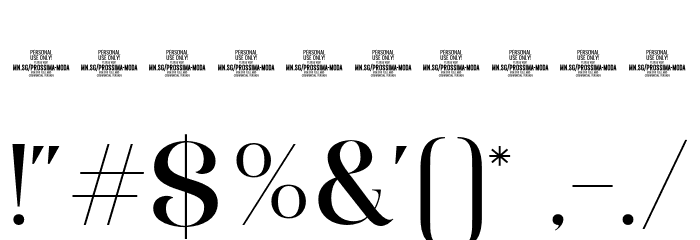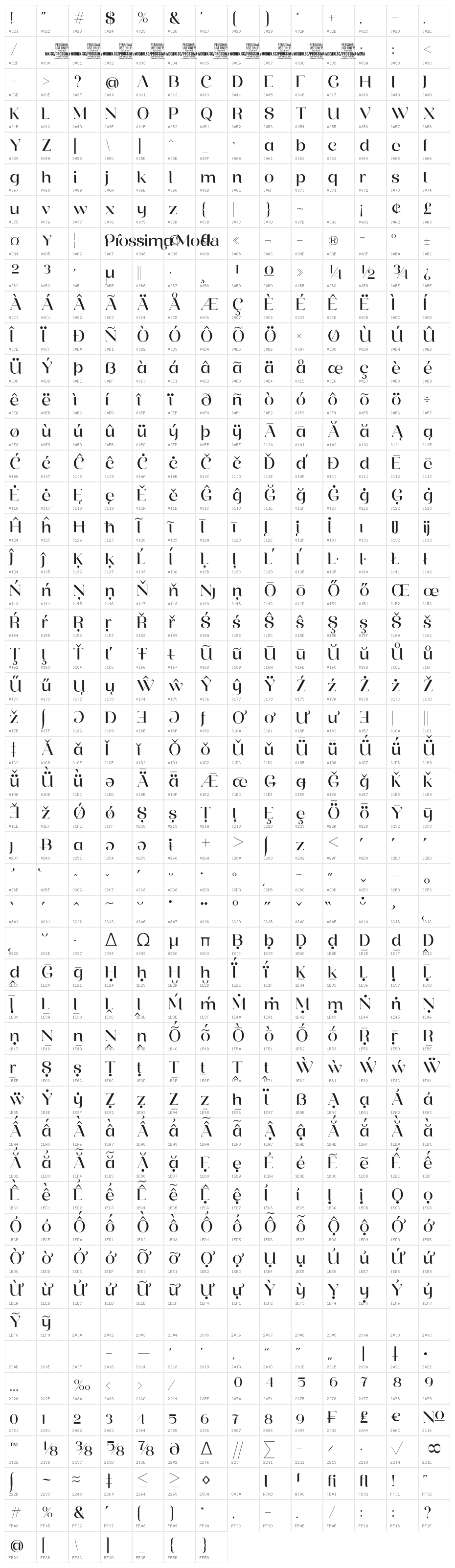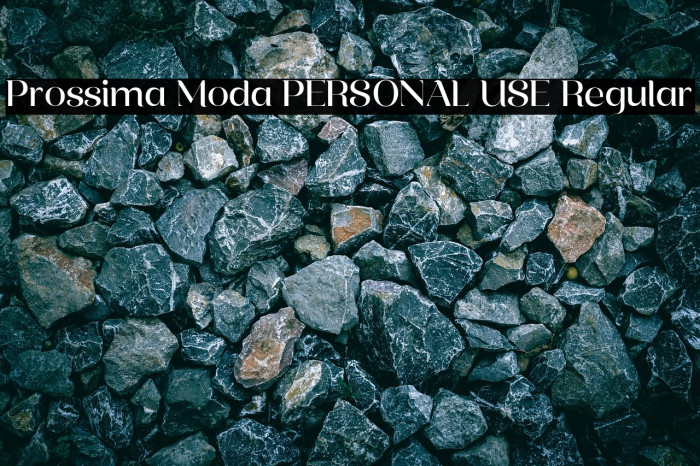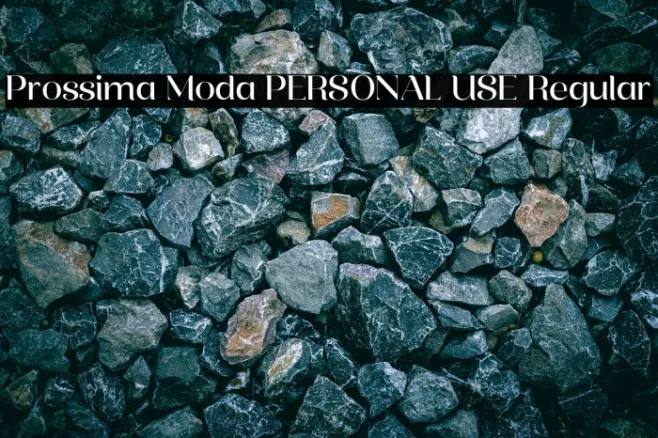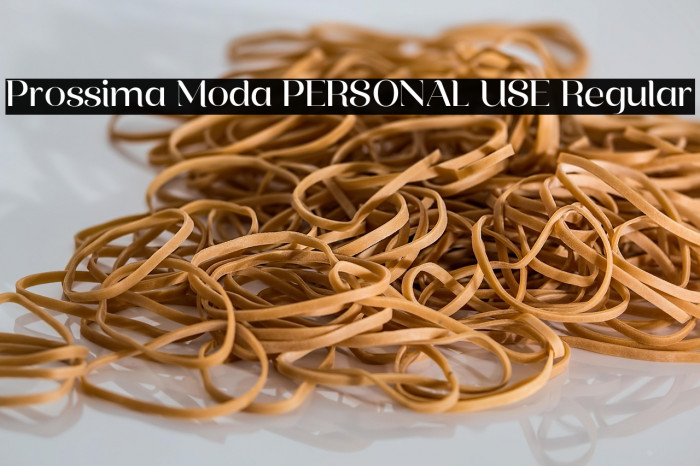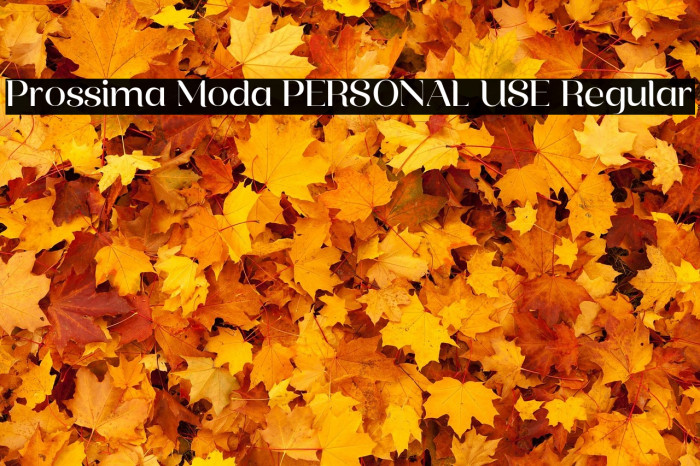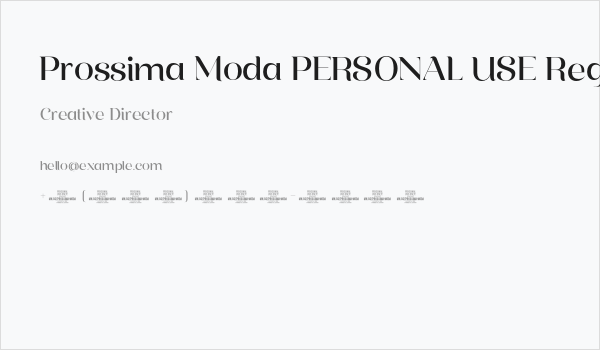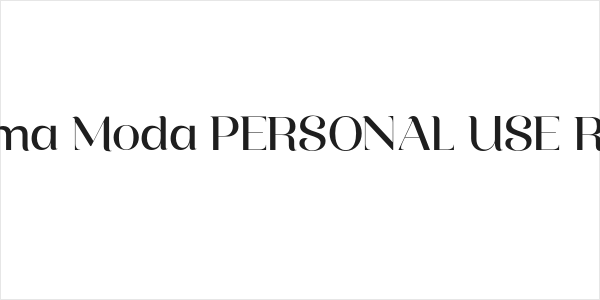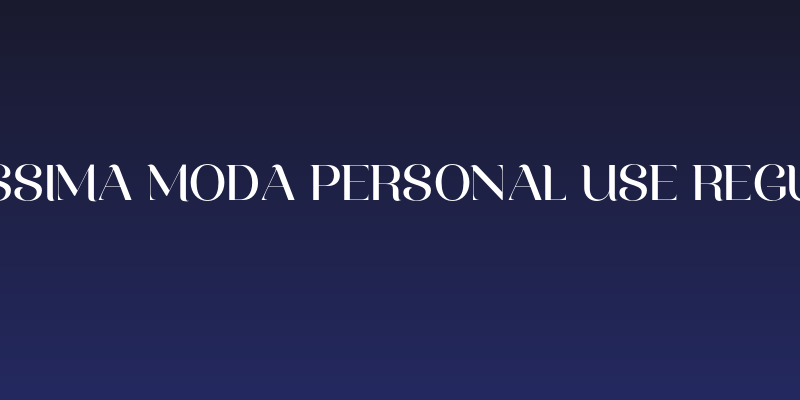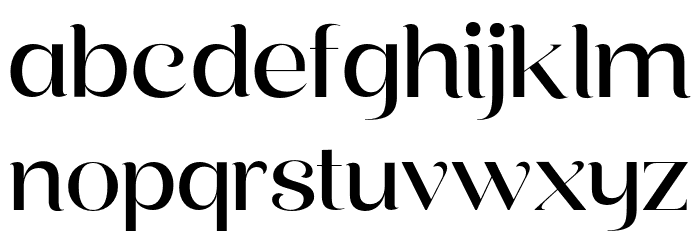
Prossima Moda PERSONAL USE Regular Font
Prossima Moda PERSONAL USE Regular Description
This font features a modern and elegant design with a high contrast between thick and thin strokes, giving it a sophisticated and stylish appearance. The uppercase letters are bold and striking, while the lowercase letters maintain a smooth and flowing form. The unique character shapes, such as the elongated serifs and the distinct curves, add a touch of flair and creativity. The numerals and special characters are consistent with the overall design, ensuring a cohesive look across all text. This font is perfect for making a statement, whether in print or digital media.
| Overall Style | Modern, Elegant |